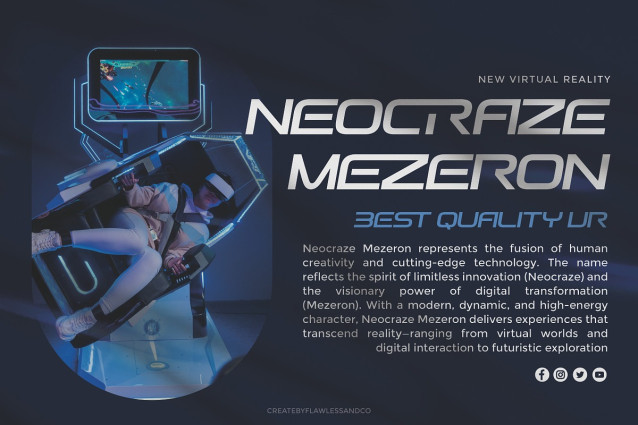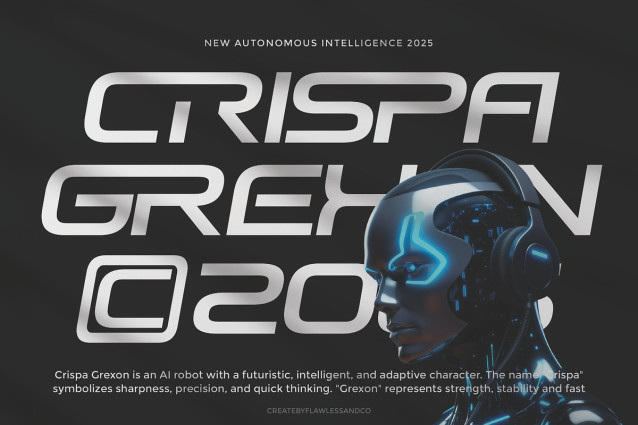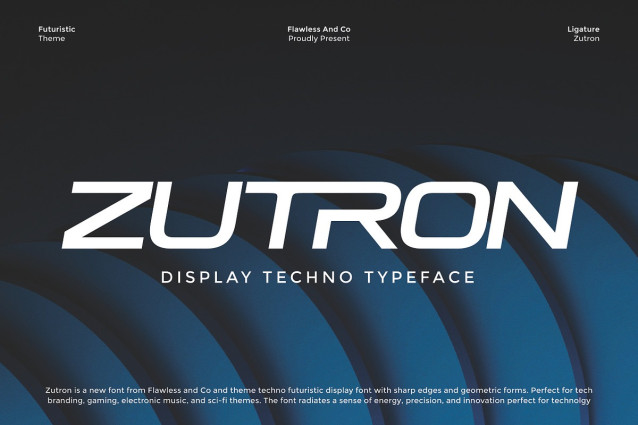
Zutron Futuristic Font is a cutting-edge futuristic display font designed with sharp edges and geometric precision. Inspired by technology, sci-fi, and modern digital aesthetics, this typeface brings a bold and innovative look to your designs. Perfect for tech branding, gaming titles, electronic music covers, and futuristic themes, Zutron radiates energy, clarity, and forward-thinking design. With its sleek structure and techno-inspired style, Zutron gives your projects a modern identity that feels powerful, dynamic, and ahead of its time. Whether used for logos, posters, UI design, or promotional materials, this font delivers a striking futuristic impression that demands attention.